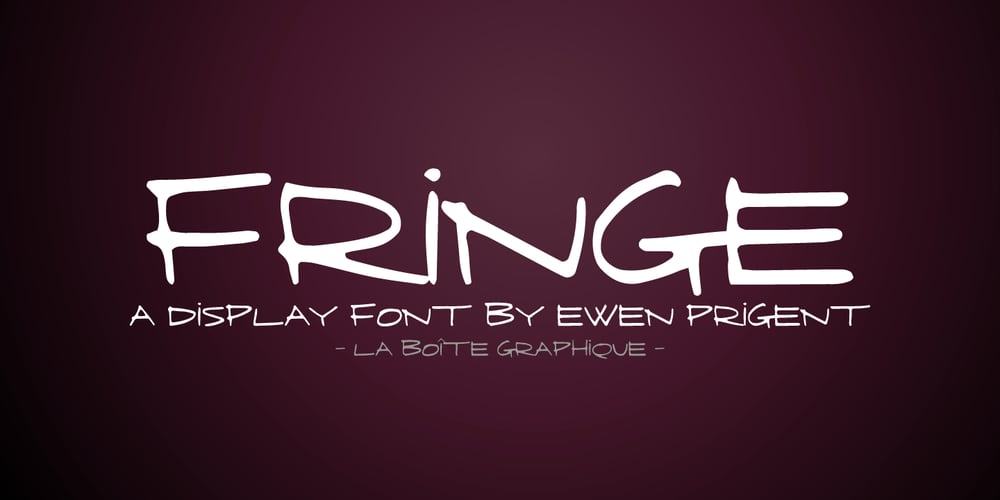
Fringe Font Family was designed by Ewen Prigent and published by La Boîte Graphique. Fringe contains 1 styles and family package options. Fringe is a hand made font ideal for your graphic project.